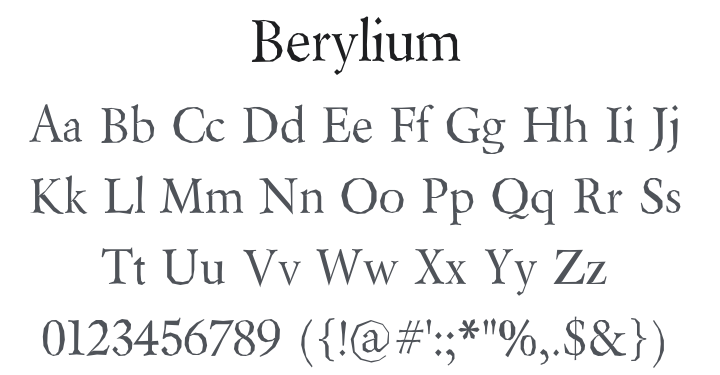
Berylium Font Family
About Berylium
Berylium is an old-style serif typeface with a distinctive jagged edge treatment that makes letters look as if they've been cut from paper or sheet metal — elegant yet raw. Available in Regular, Italic, Bold, and Bold Italic. Great for editorial headlines, literary branding, book covers, music posters, and designs that need classic serif structure with an edgy, textured personality.